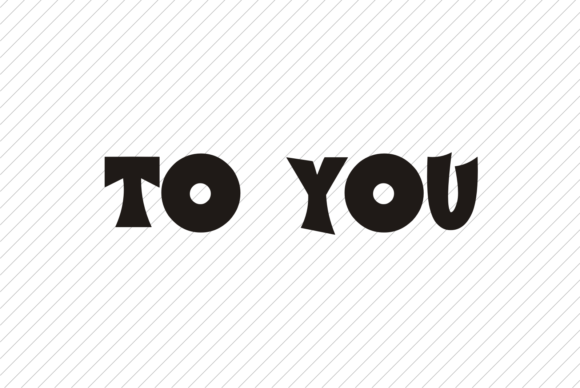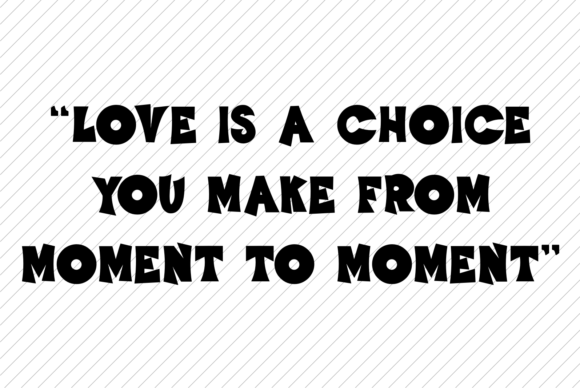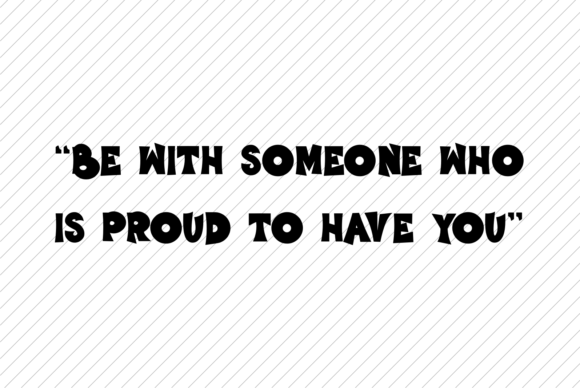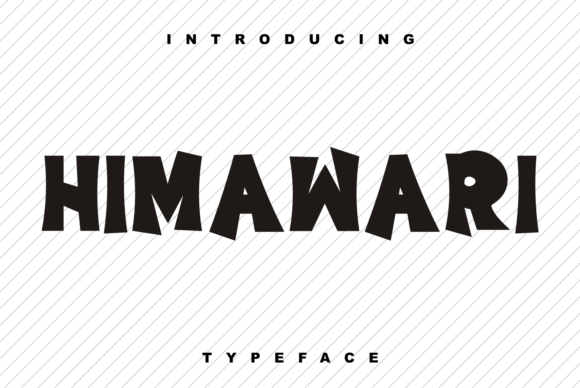
Introduction to Himawari Font
Himawari is a thick-lettered and cool display font.
Simple but with a strong visual effect, this font will instantly make your creations more appealing than any others .
Key Features of Himawari Font
Why Choose Himawari Font?
Himawari Font offers exceptional quality and versatility, making it a valuable addition to your design toolkit. Whether you’re creating for personal projects or commercial use, Himawari Font delivers professional results.